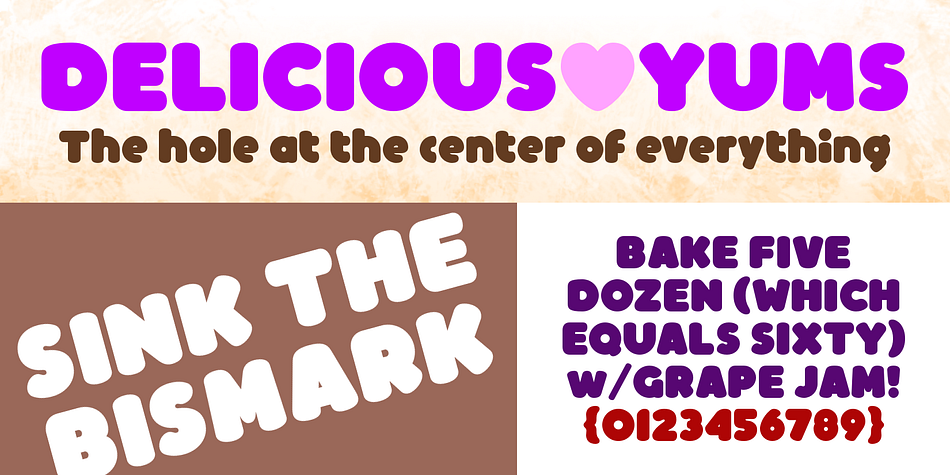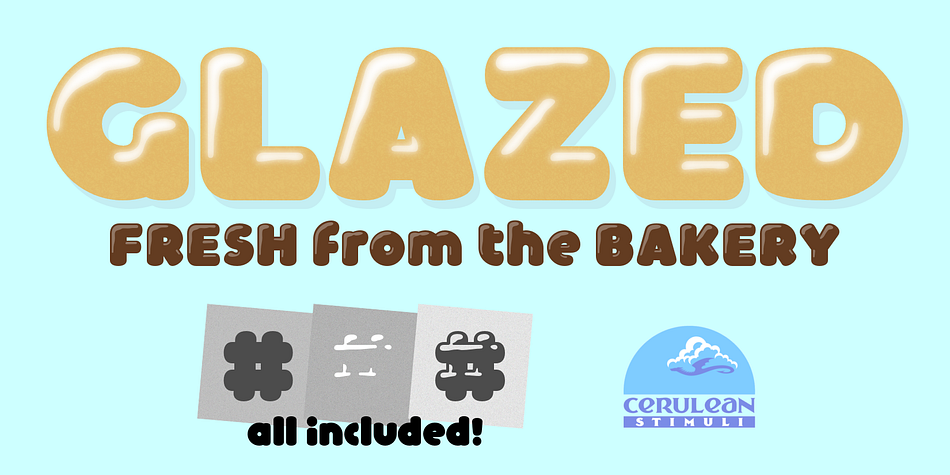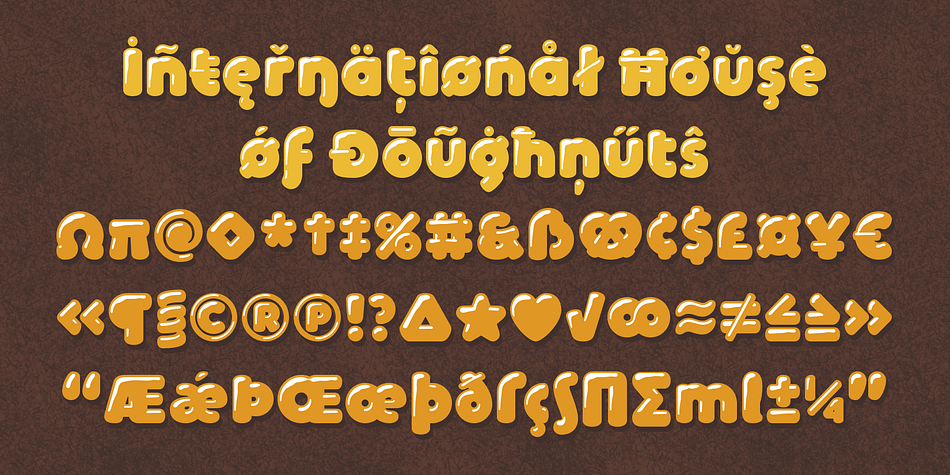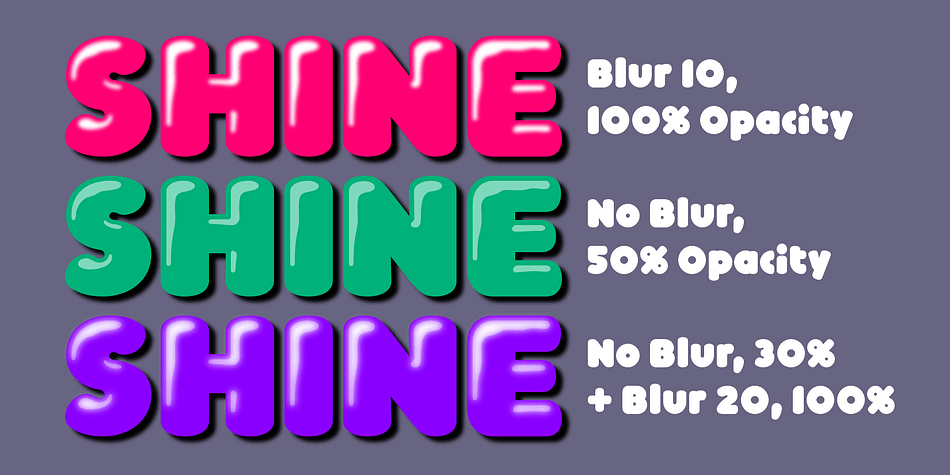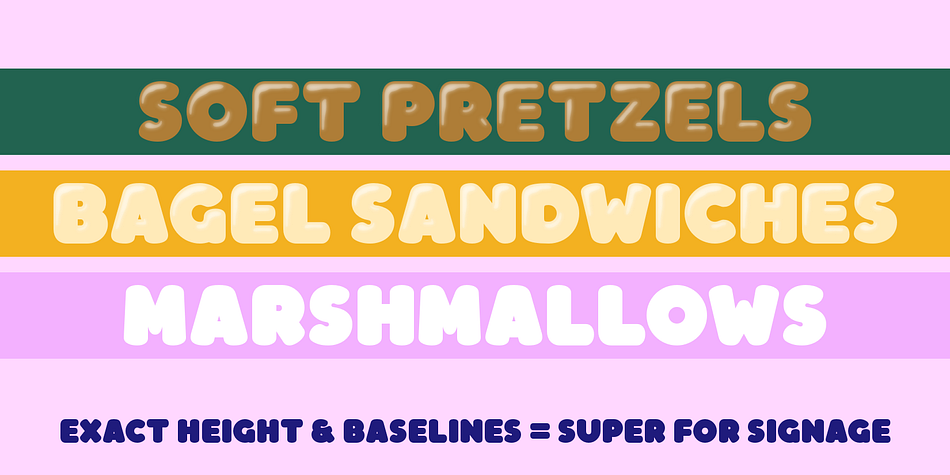
Glazed is a hand display font family. This typeface has three styles and was published by Cerulean Stimuli .
Take a big chewy bite of Glazed, the especially doughy doughnut font. With its blunt “maple bar” strokes, Glazed is bolder than many other rounded typefaces while still being clean and neat. The uses for food and candy packaging are obvious, and it is especially suited for store signage because it is deliberately designed without overshoot so that it sets neatly on a line. Enjoy it plain, or add dimension with the carefully-drawn glistening highlights, which are available pre-composed in Glazed Shiny or as a separate Shine layer that you can apply with the right color, transparency, and glow for the effect you want. It’s versatile and tasty!